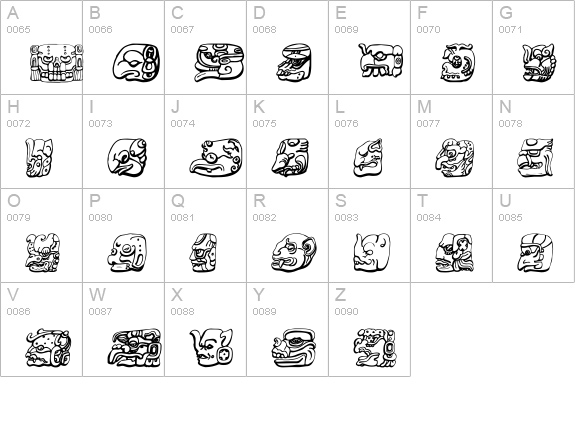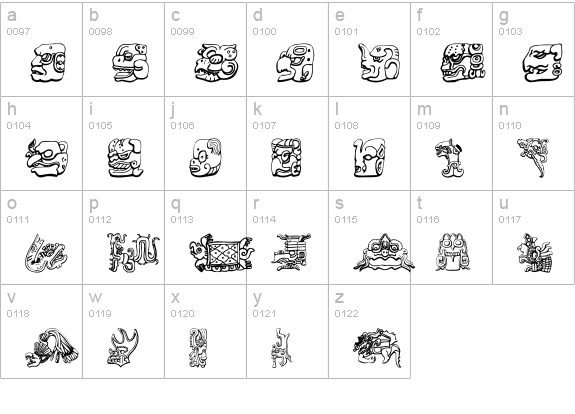
Mayan Font Details
Immerse yourself in the ancient beauty of Mayan culture with this exquisite Mayan font. Crafted with intricate details reminiscent of traditional Mayan art and hieroglyphics, this font brings a touch of history and mystique to your projects. Each character is meticulously designed to capture the essence of the ancient Mayan writing system, allowing you to infuse your designs with a sense of authenticity and depth. Best of all, this stunning Mayan font is available for free download at FontsMarket.com. Whether you're working on a historical project, creating eye-catching graphics, or simply want to add a unique flair to your designs, this font is sure to impress. Download it today and unlock the timeless beauty of the Mayan civilization at your fingertips.